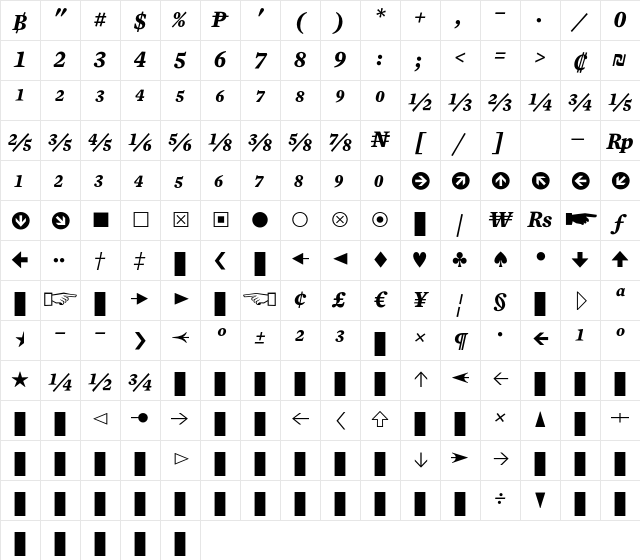
Mercury Numeric G1 Bold Italic Free Font
Mercury Numeric G1 Bold Italic
Mercury Numeric G1 Family
Design Context for Mercury Numeric G1
Mercury Numeric G1 is a composed and adaptable typeface that performs quietly and consistently across a wide range of design contexts. The slanted form adds forward momentum and visual energy. Its bold stroke weight gives it real presence on the page.